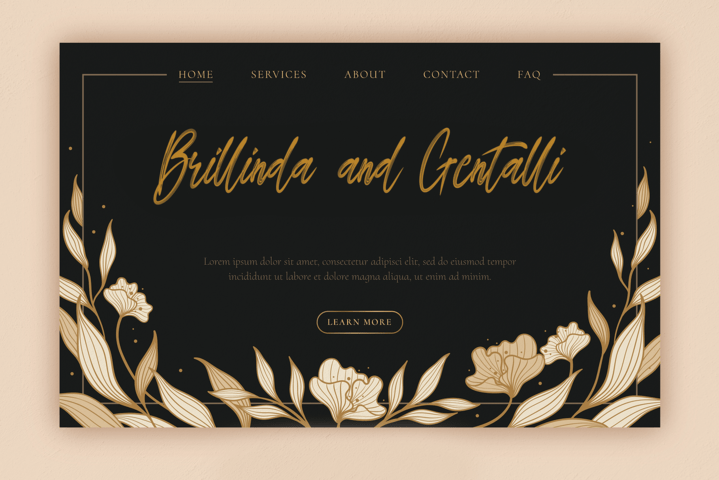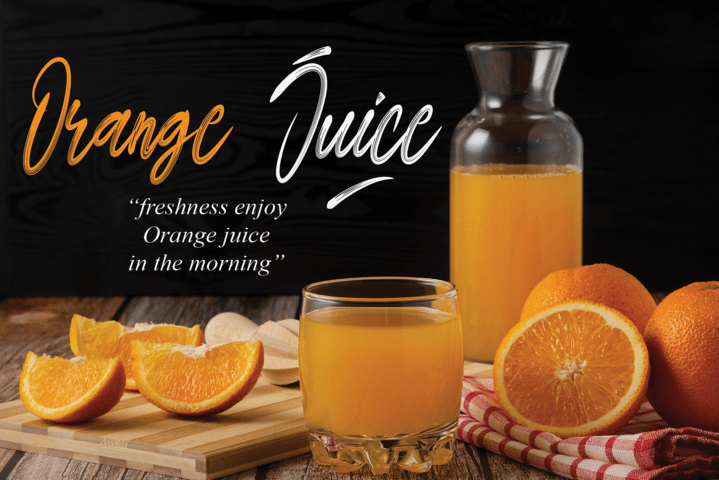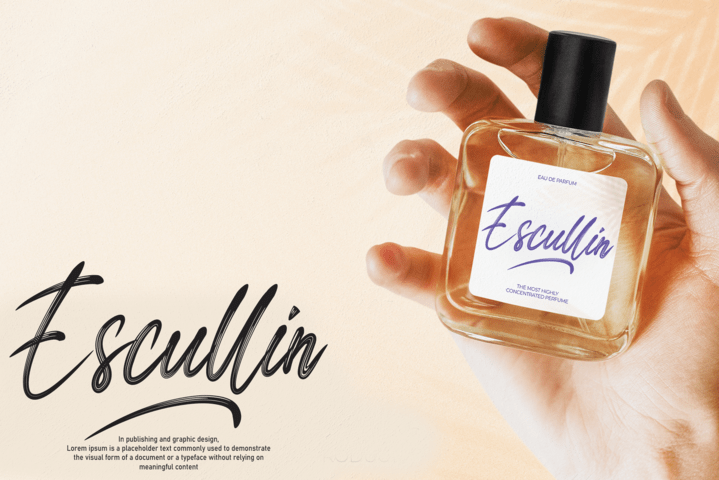
Black Light Font
Black Light Brush Font
It’s a beautiful and light handwritten font with a unique feel and a stunning impact. It will add a luxury spark to any design project that you wish to create! This font is PUA encoded which means you can access all of the amazing glyphs and ligatures with ease!